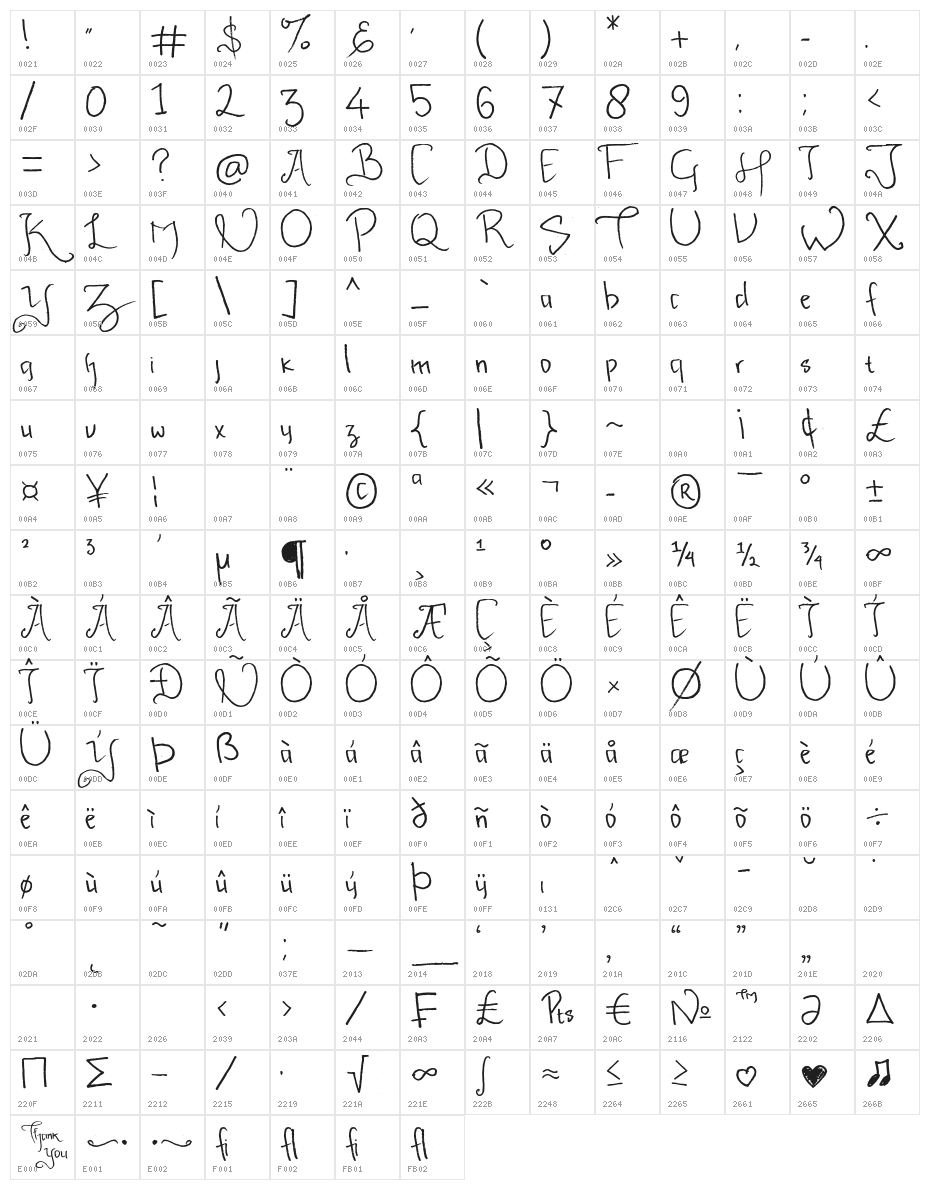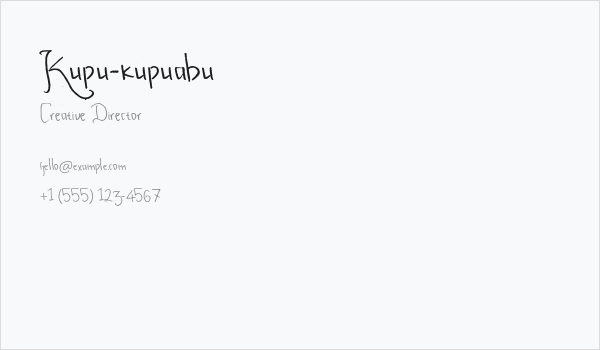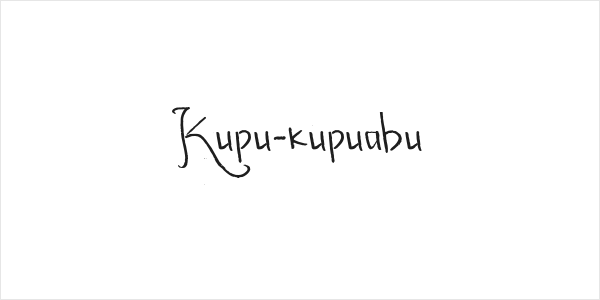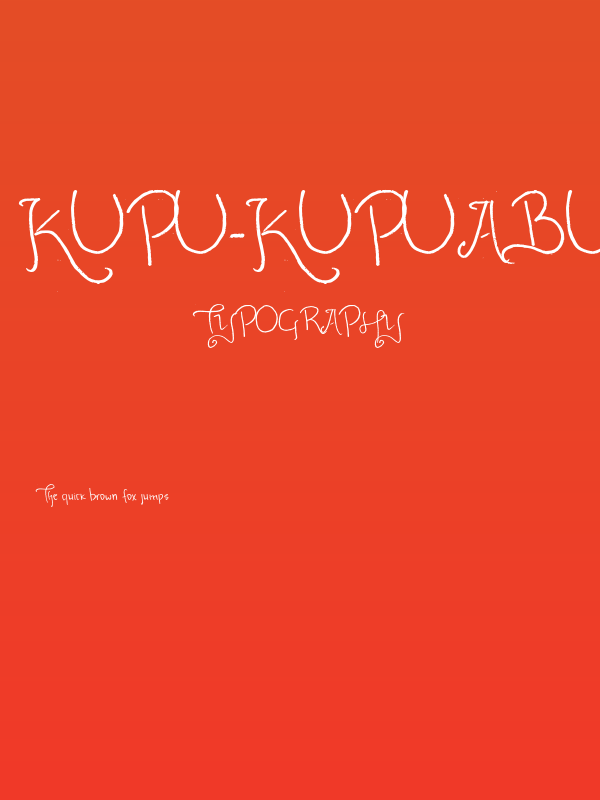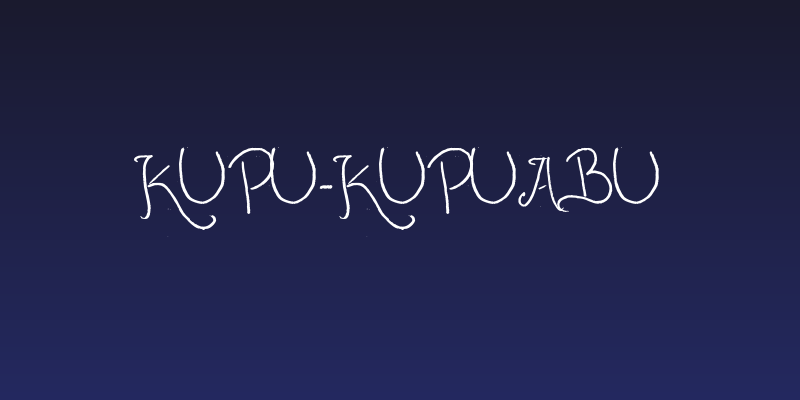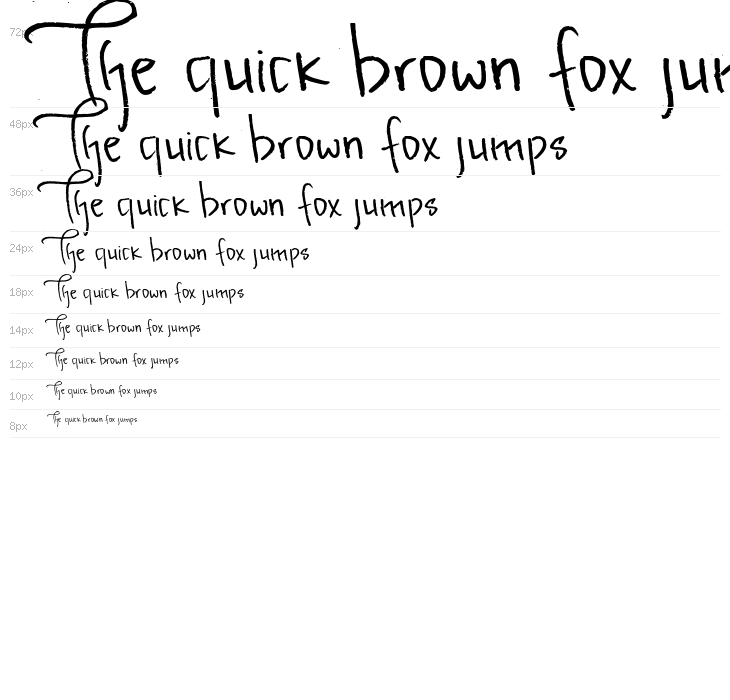
Kupu-kupuabu Font
Kupu-kupuabu Description
This font features a whimsical, handwritten style that combines both elegance and playfulness. The uppercase letters exhibit a unique, flowing script with varying stroke widths, giving them a dynamic and lively appearance. The lowercase letters maintain a similar style, with a slightly more casual and approachable feel. Numbers and special characters are crafted with the same artistic flair, ensuring consistency across all elements. The overall design is reminiscent of a personal touch, making it ideal for projects that require a humanistic and creative vibe.
| Proposed Projects | Ideal for greeting cards, invitations, personal branding, and creative projects that require a touch of personality. |